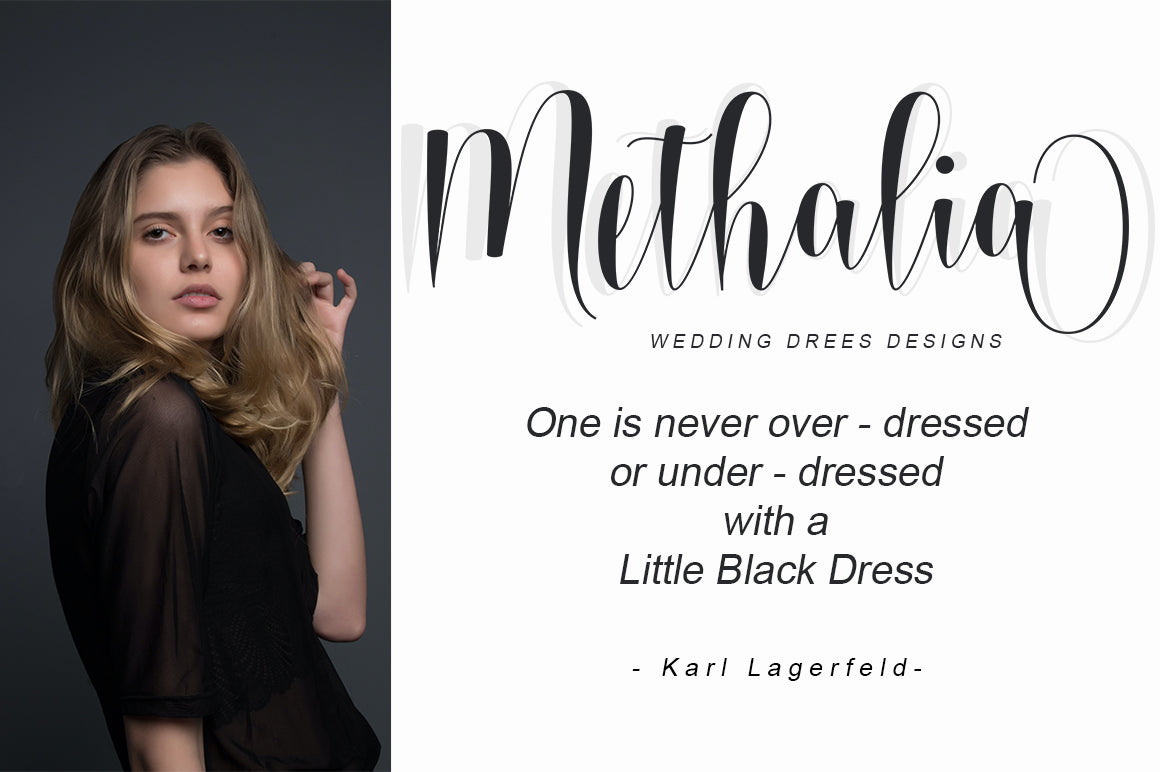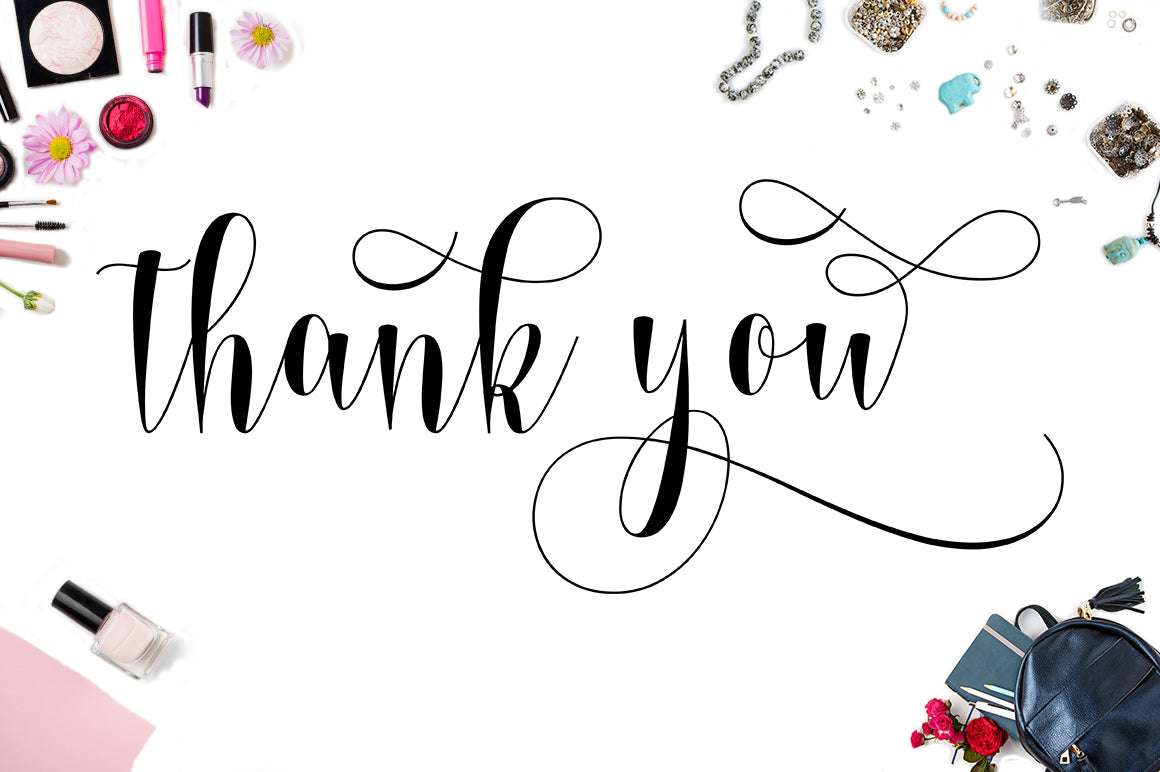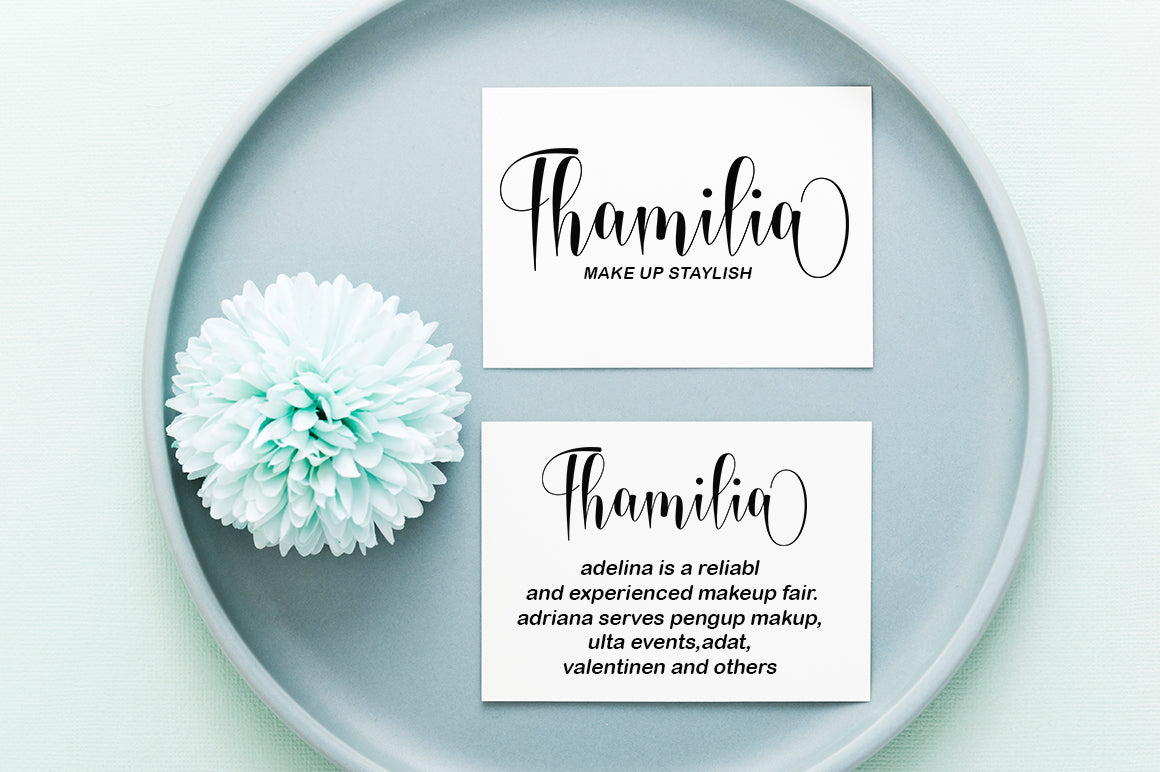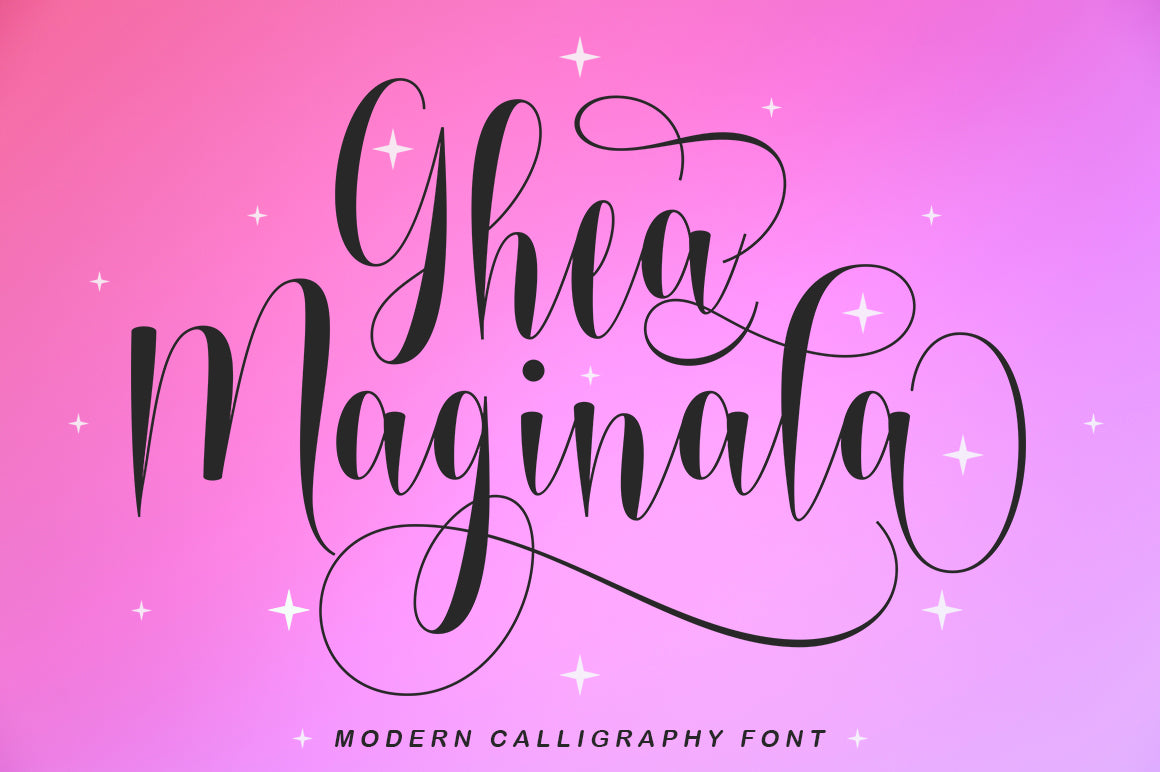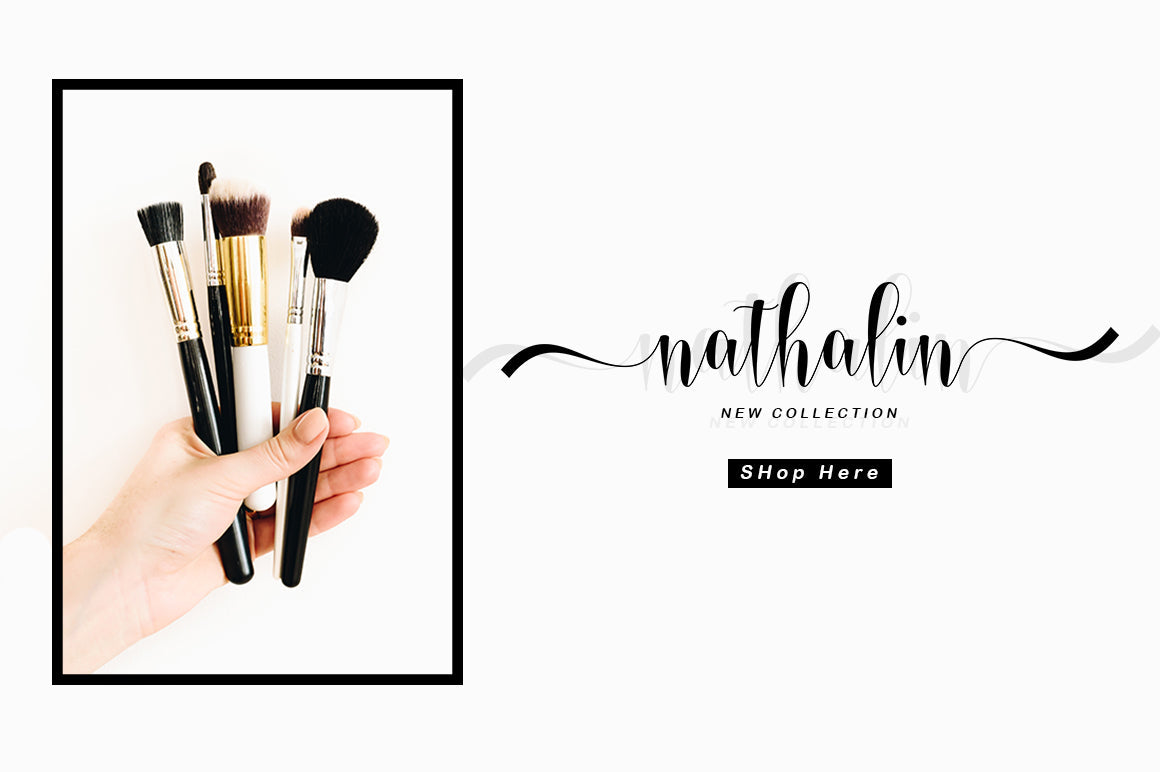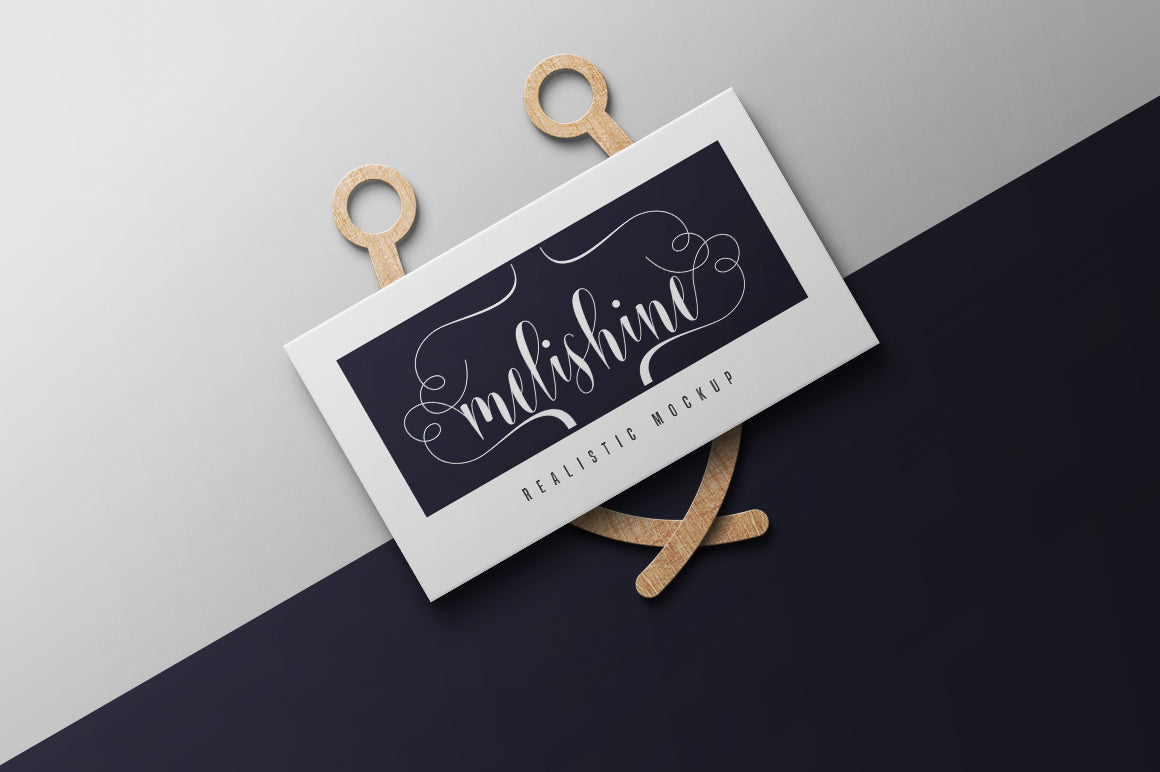
Ghea Maginala
About Ghea Maginala
Introducing Ghea Maginala, a new luxury & elegant calligraphy font. Ghea Maginala is perfect for wedding invitations & cards, blogs and websites, branding design, packaging design, wine labeling, and more. Ghea Maginala includes full set of upper and lowercase letters, numerals & punctuations, ligatures, swash and alternate characters, as well as multilingual support.